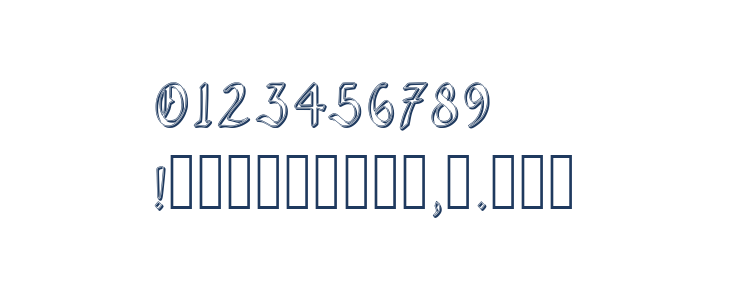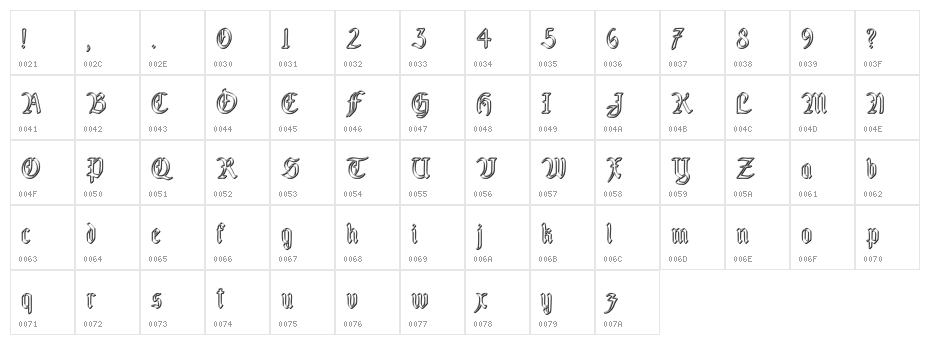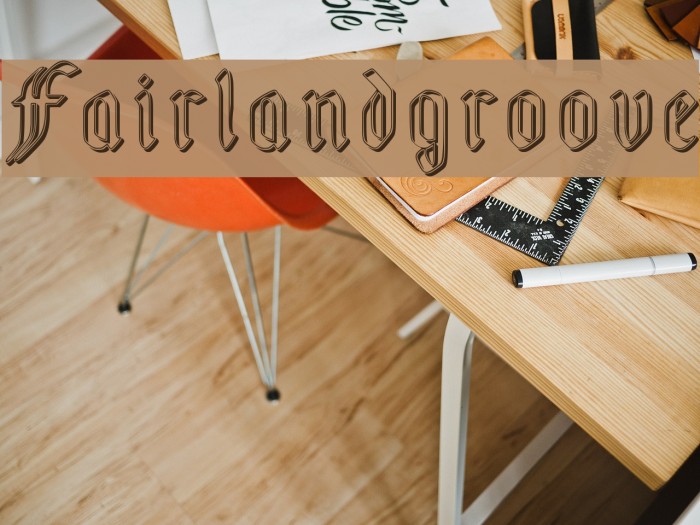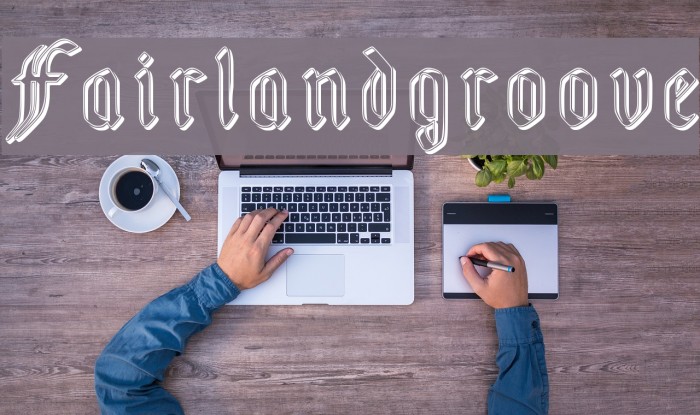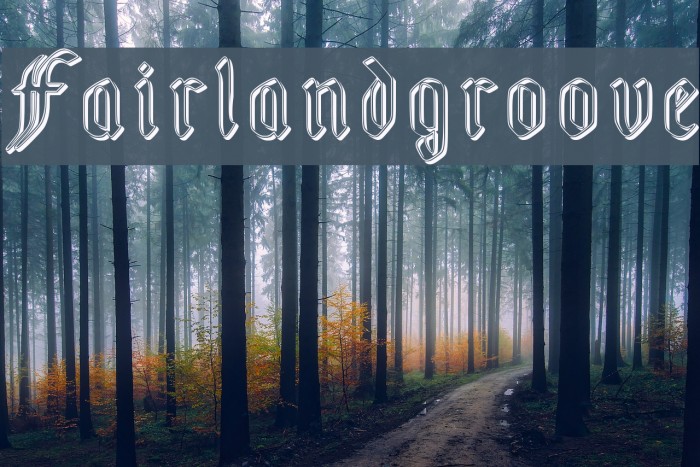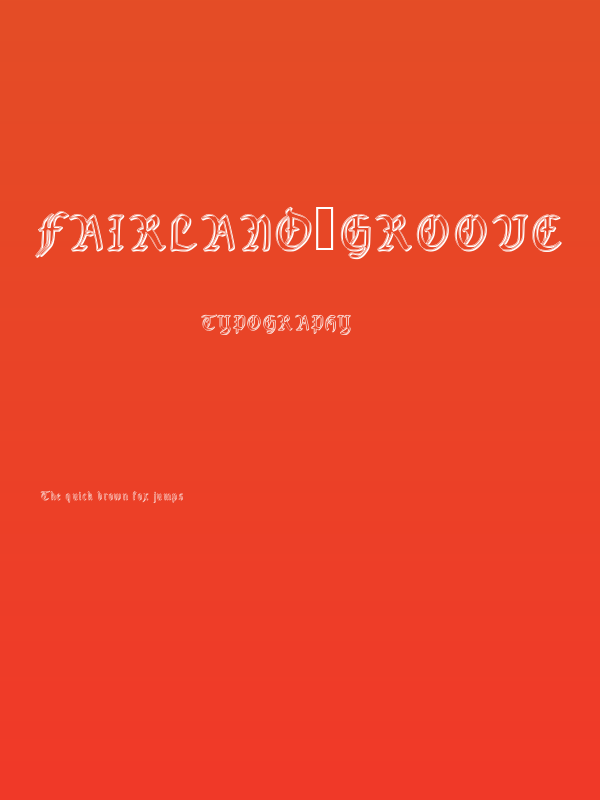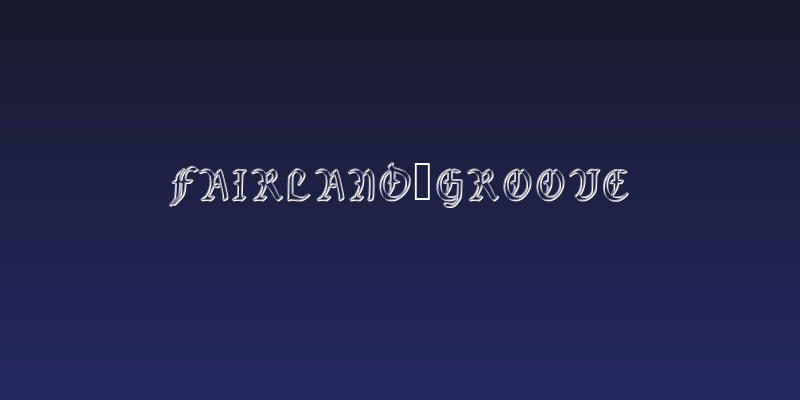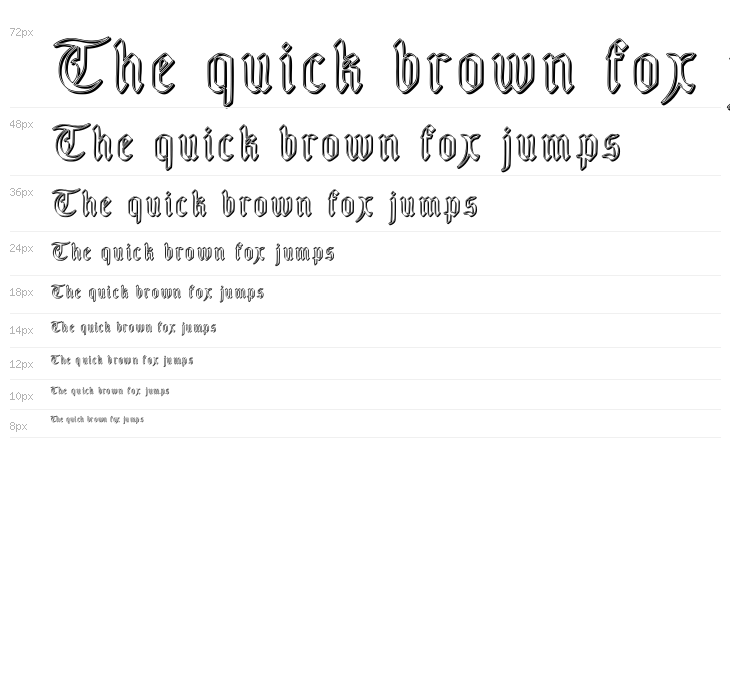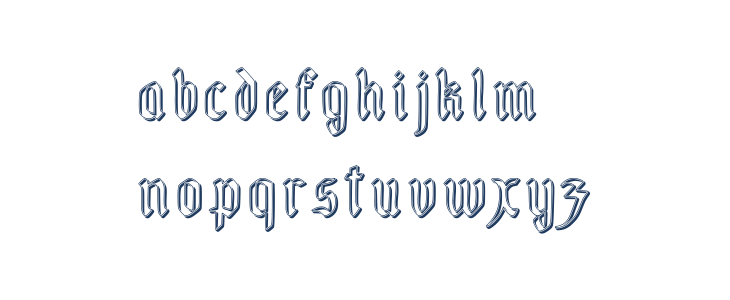
Fairland_groove Font
Fairland_groove Description
This font features a bold, ornate style with a distinct blackletter influence, characterized by its intricate and decorative letterforms. The uppercase and lowercase letters exhibit a strong, angular structure with sharp serifs and elaborate flourishes, giving it a historical and gothic appearance. The numbers and special characters maintain this elaborate style, ensuring consistency across the font. The overall design is reminiscent of medieval script, making it suitable for projects that require a touch of elegance and tradition.
| Proposed Projects | Ideal for use in historical or fantasy-themed designs, book covers, posters, and branding that requires a classic and sophisticated touch. |